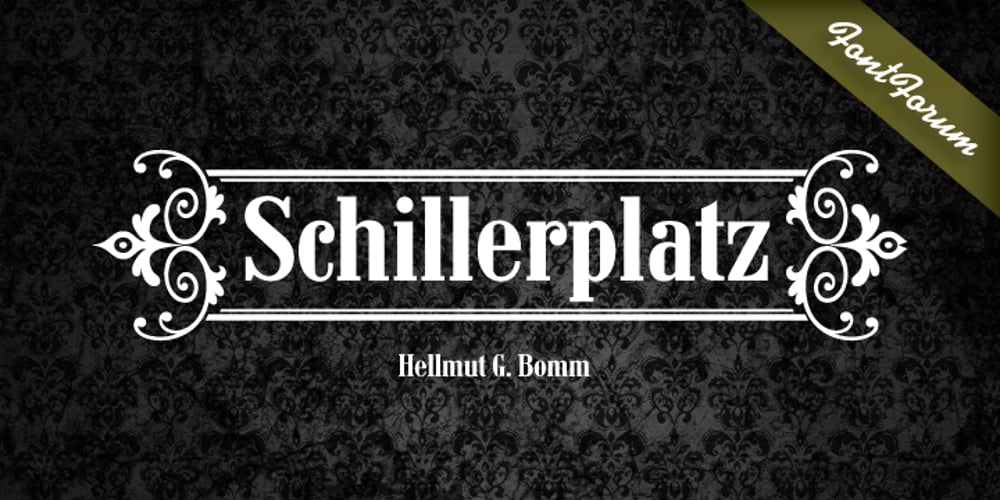
Schillerplatz
Schillerplatz font
Schillerplatz Font Family was designed by Hellmut G. Bomm and published by URW Type Foundry. Schillerplatz contains 2 styles and family package options. When the German city of Backnang asked Hellmut G. Bomm to draw the letterings ‘Markgrafenhof’ and ‘Stiftshof’ in the historical style of the street signs from the middle of the last century, he so liked what he had drawn that he consequently developed two complete font weights (regular and bold) from it. He named the typeface Schillerplatz. Both fonts are true representations of street signs ? unquestionably beautiful.